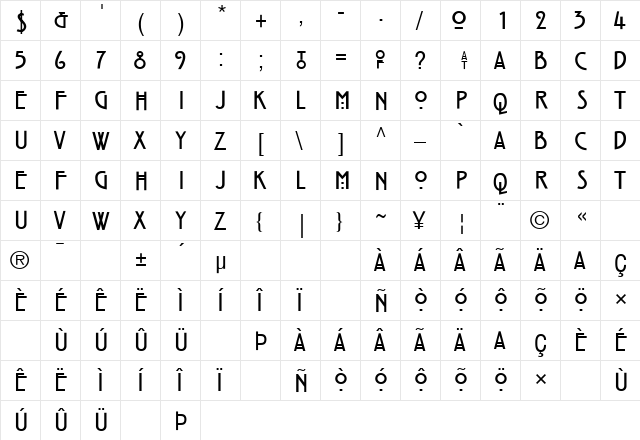
Strong Glasgow Regular
| Foundry | Hypefonts |
| Designer | Guilhem GRECO |
Design Context for Strong Glasgow Typeface
Strong Glasgow is a composed and adaptable typeface that performs quietly and consistently across a wide range of design contexts.